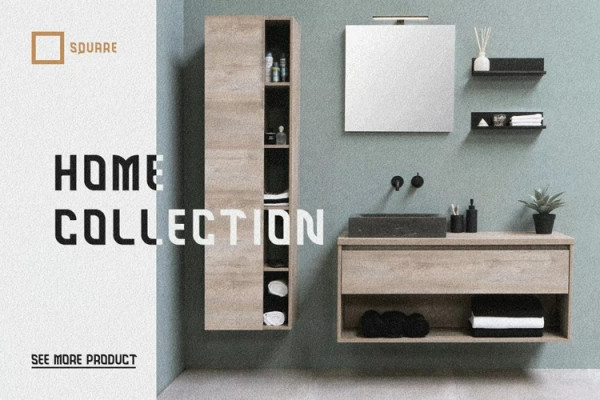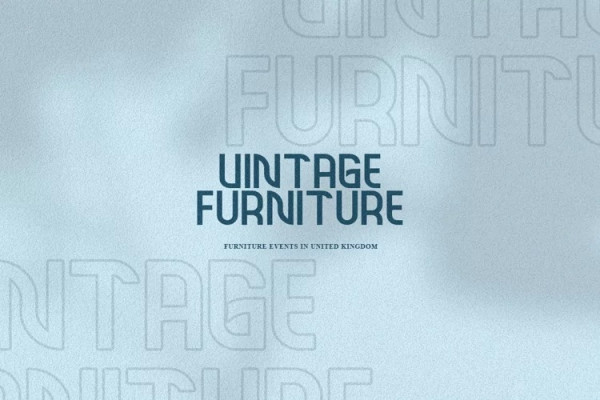
Home Furniture Font
Home Furniture Font is a modern sans serif font, Original handmade by myself. and includes several languages ​​such as European and Asian. This font is suitable for branding, headlines, logos brand furniture, websites furniture shop, invitations, magazine covers, music covers, billboards and others. I created this Home Furniture font inspired by the shape of old window doors, tables, cabinets, chairs and tools for making furniture itself, such as hammers. Show your love for your project !